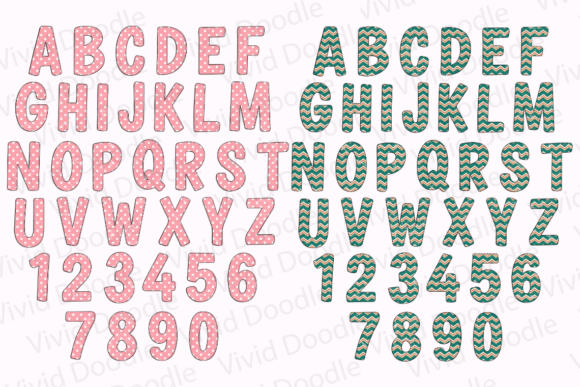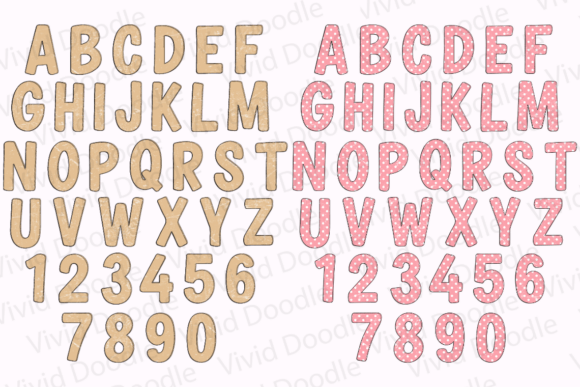
Retro Christmas Doodle Font
Retro Christmas Doodle Font is a delightful, vintage-inspired typeface that captures the nostalgic charm of Christmas past. Featuring hand-drawn doodles of classic holiday icons like ornaments, candy canes, stockings, and Christmas trees, this font adds a whimsical, retro flair to your designs. Ideal for holiday cards, school projects, posters, creative art, and festive decorations, Retro Christmas Doodle Font will bring a playful and joyful spirit to your Christmas-themed creations. Embrace the magic of the holidays with this fun and festive font!